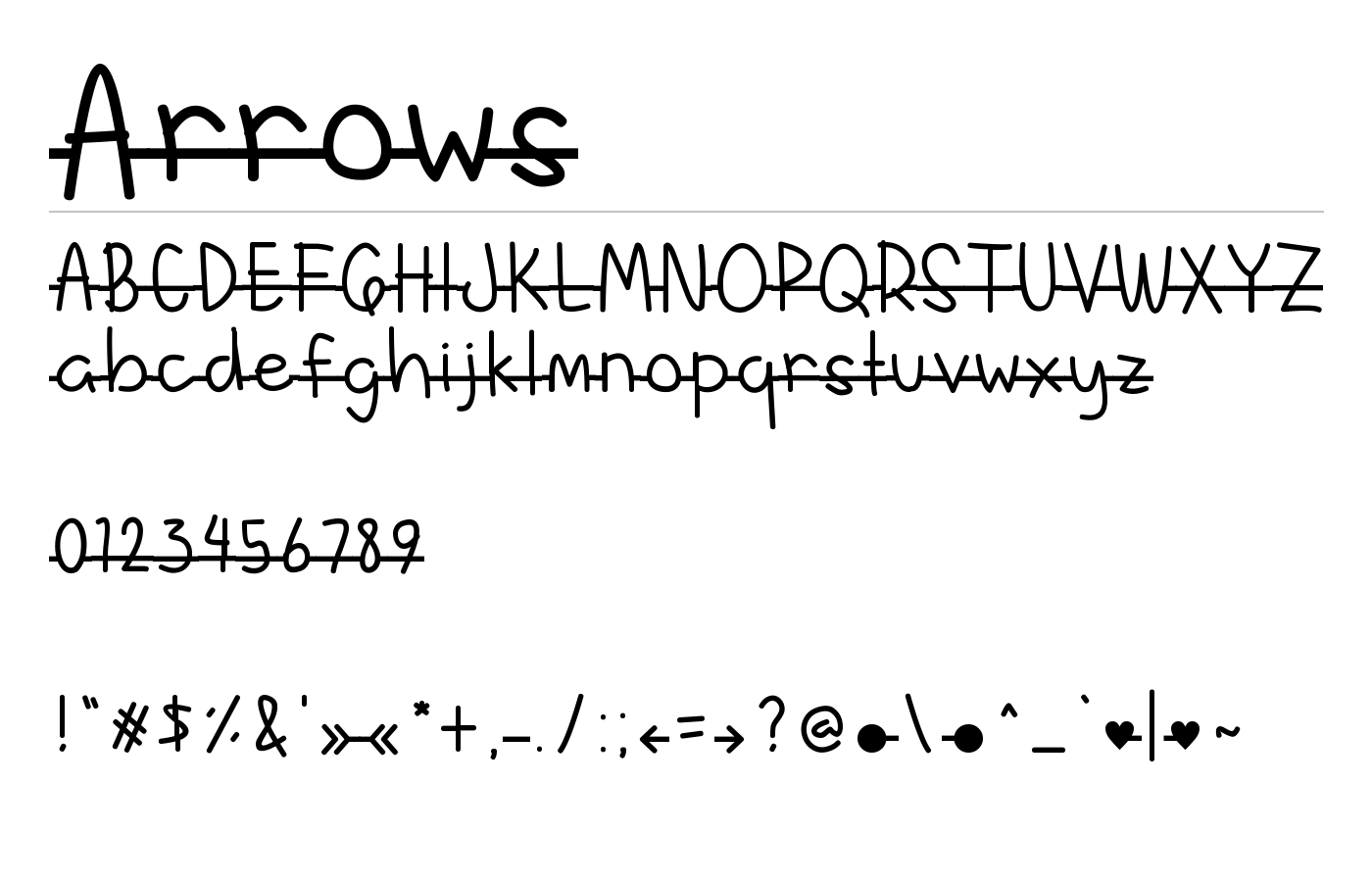
Arrows Font is a playful, hand-drawn sans serif typeface with a casual and friendly feel, characterized by its thin strokes and unique horizontal lines crossing through each character. Its irregular shapes and informal style make it perfect for creative projects, children's designs, or any setting where a fun, approachable tone is desired. This font works well for headlines, invitations, or branding that aims to stand out with an artistic and whimsical touch.
Arrows Font
About Arrows Font